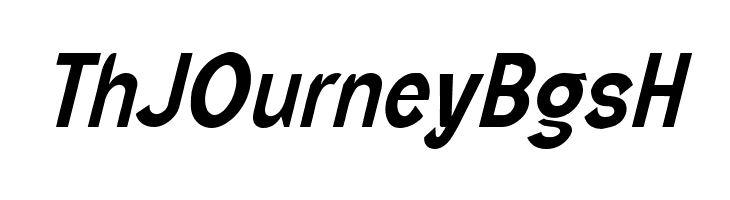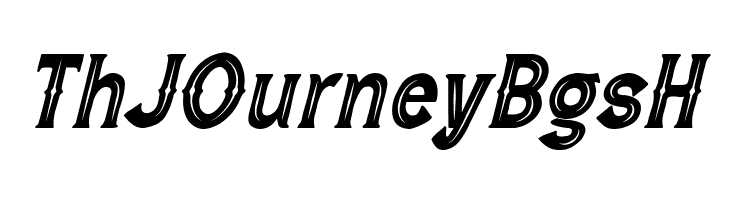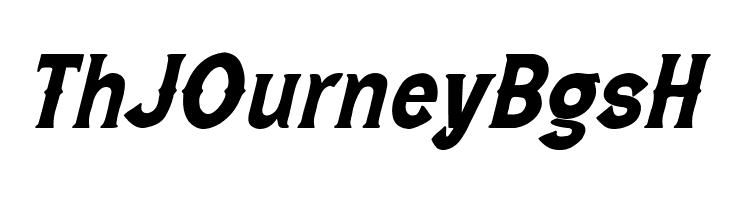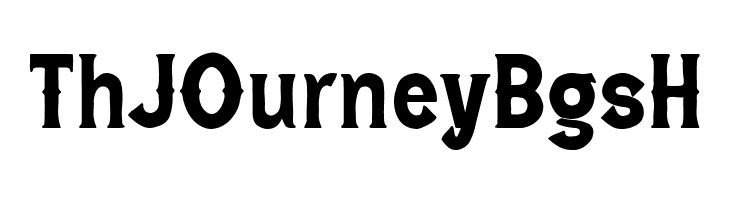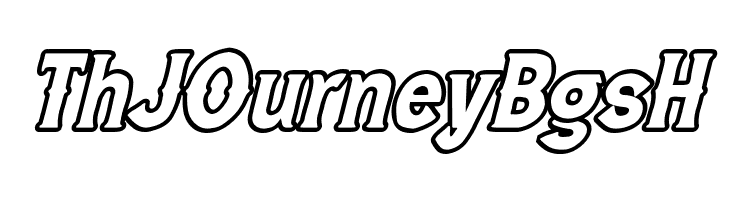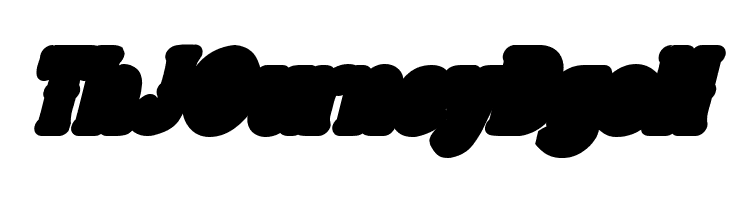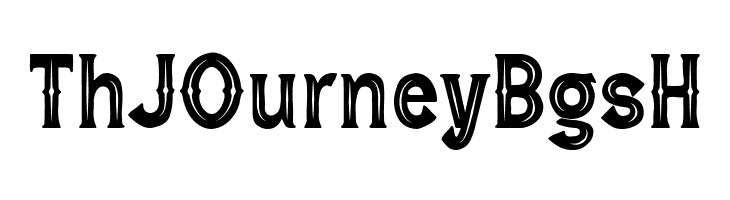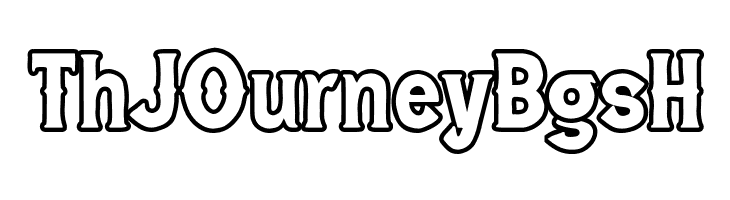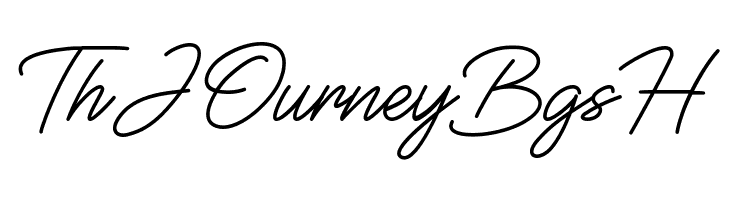
• Wild Bandit Extrude Italic
A bold, extruded italic font with a playful and dynamic style.
• Wild Bandit Italic
A bold, italic font with a modern and dynamic style.
• Wild Bandit Outline
A bold, outlined font with a vintage, playful style.
• Wild Bandit Outline Italic
Bold, outlined italic font with a dynamic and playful style.
• Wild Bandit Serif
A bold, adventurous serif font with strong strokes and distinctive details.
• Wild Bandit Serif Hole
A bold serif font with decorative cutouts, perfect for adventurous and creative designs.
• Wild Bandit Serif Hole Italic
A bold, italic serif font with a unique 'hole' effect for a dynamic and adventurous look.
• Wild Bandit Serif Italic
A bold, italic serif font with dynamic movement and sharp serifs.
• Wild Blood Bold
A dynamic and fluid script font with elegant, flowing letterforms.
• WildScratch
A bold, textured font with a scratched, distressed appearance.